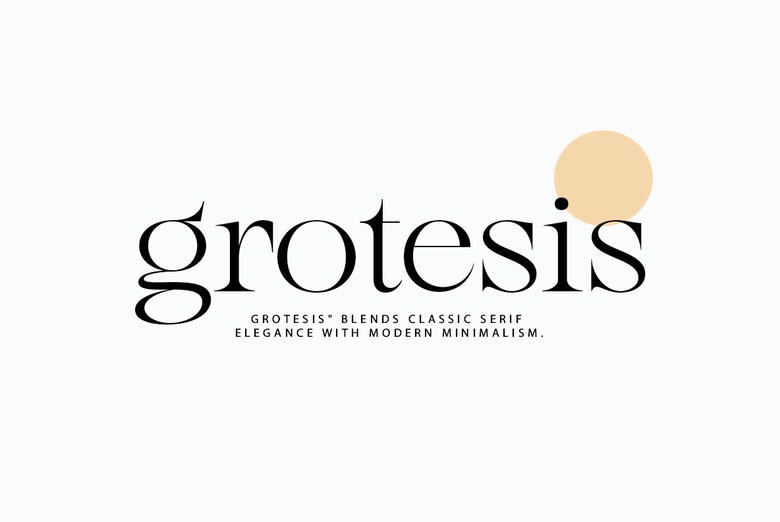
Grotesis Font
Grotesis is a typeface of serif modern that offers a perfect harmony of traditional and fashionable contempory looks of modern seriffed fonts. Its elegant and slim looking typeface is both elegant as it is simplistic in its appearance, which makes it perfect for just about any project.
Regardless of whether the project concerns itself with the luxury branding, magazine layouts, elegant clothing catalog or exclusive packaging, Grotesis looks elegant without being plain, and it takes your design to the next level of professionalism.
Grotesis Serif Font